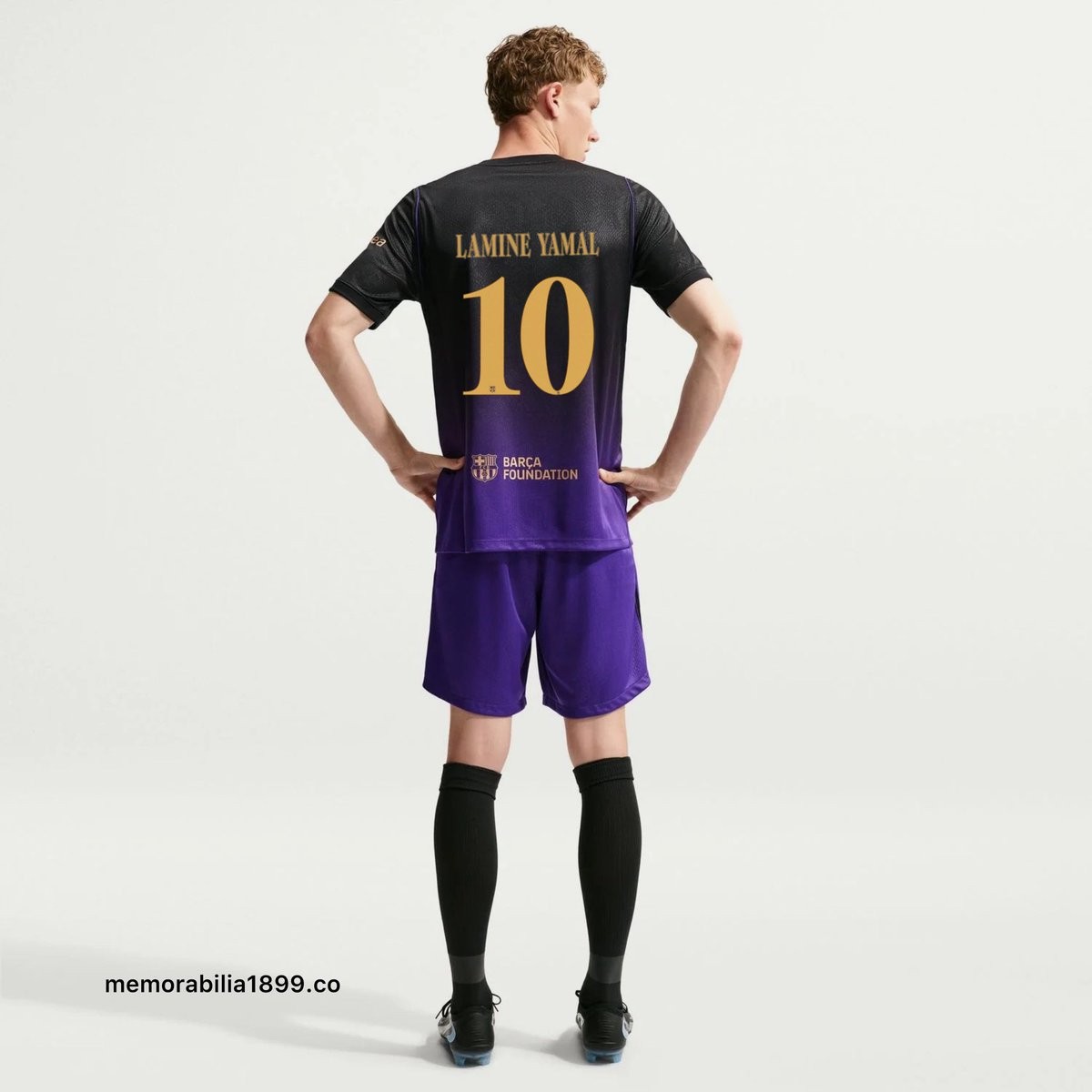
As part of the highly anticipated Nike x Barça x Mamba collaboration, FC Barcelona's 26-27 away kit will debut an exclusive custom typeface named "Gold Mamba." This has been leaked by Barca insider @memorabilia1899.
The Barça 2026-27 away typeface has an elegant look in gold.